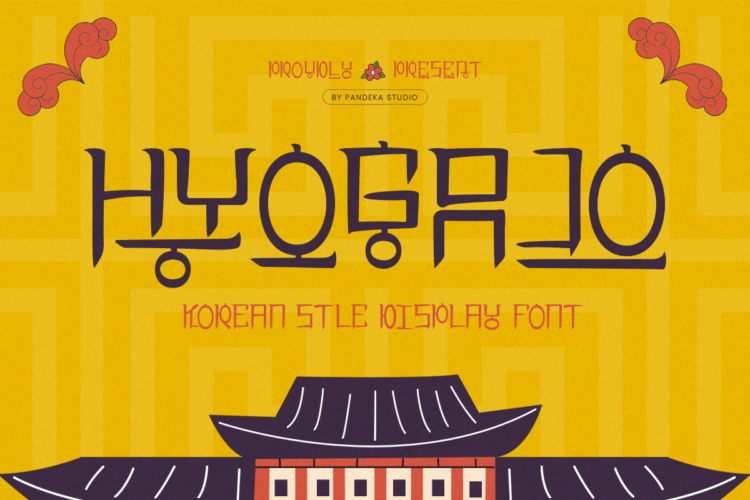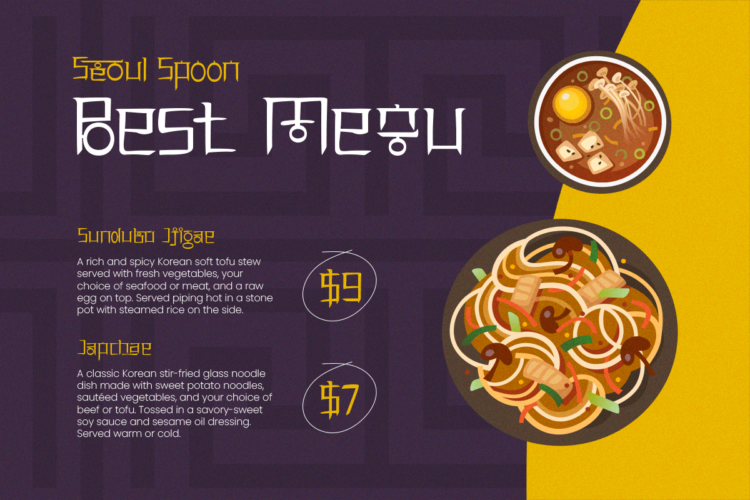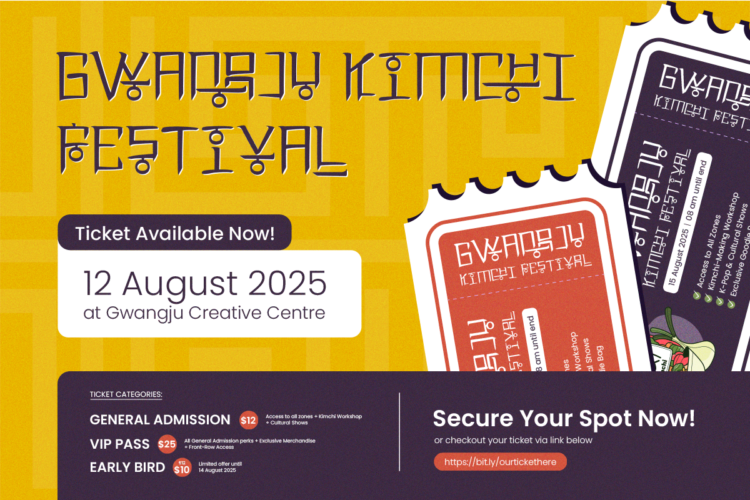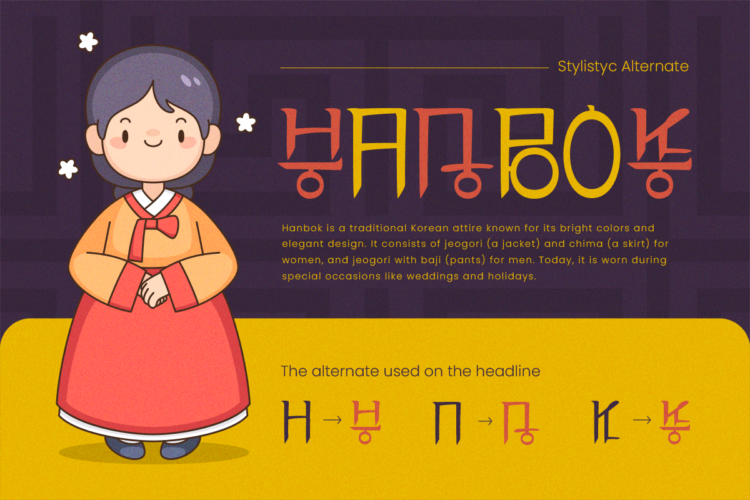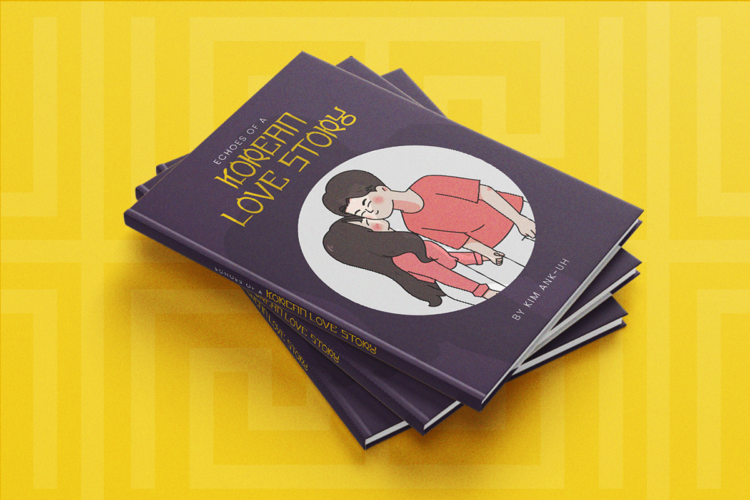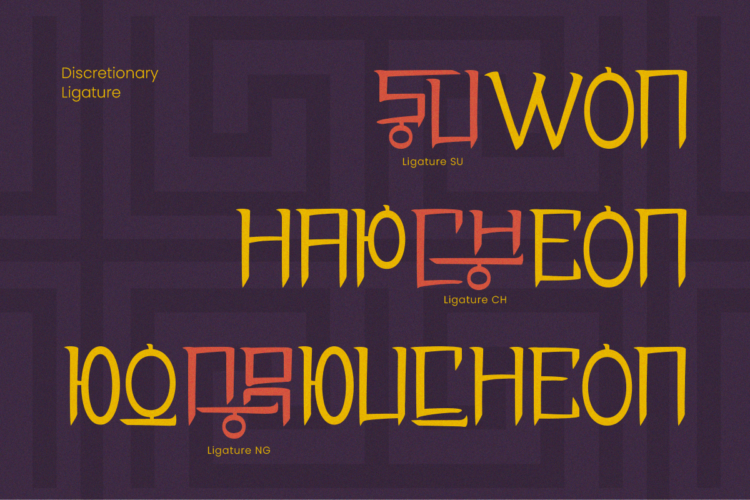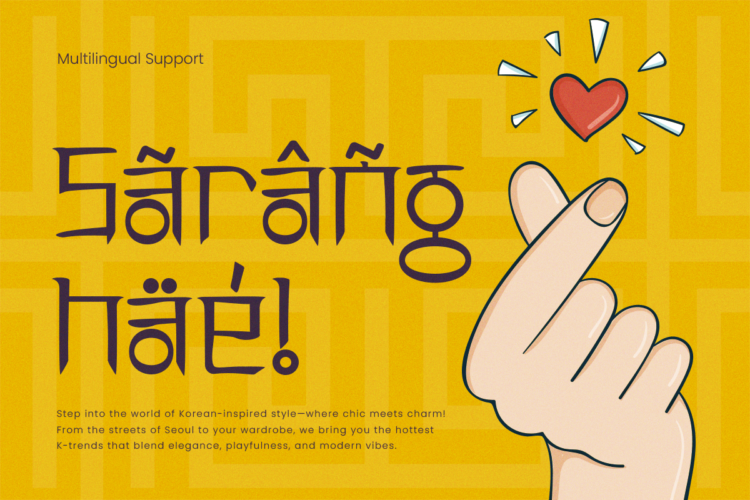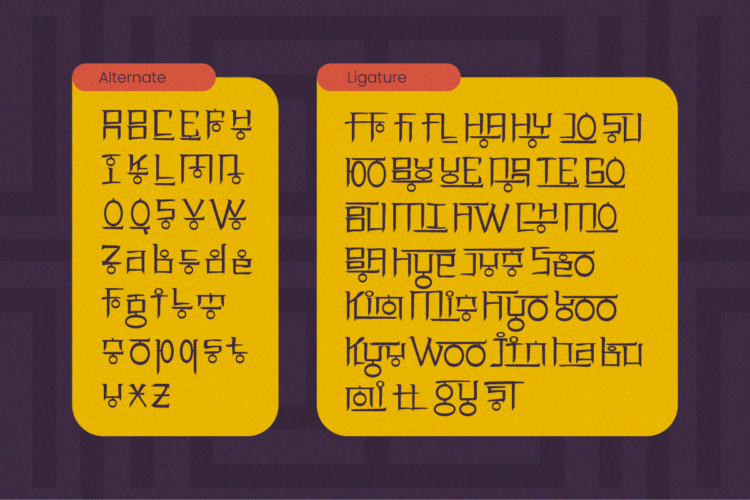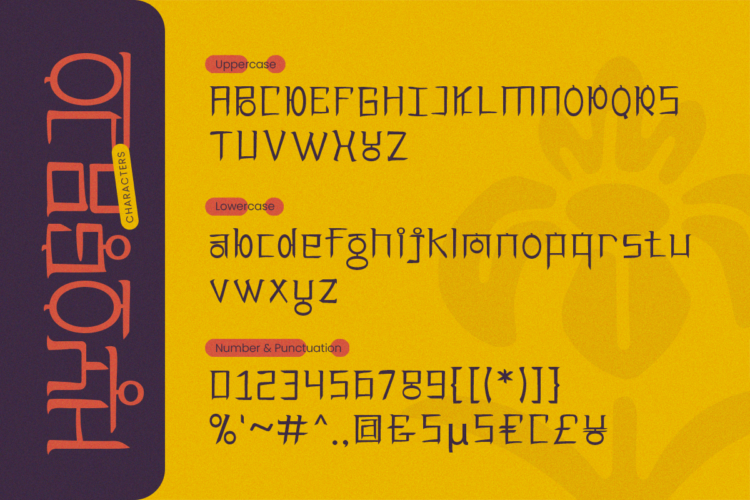
Hyogajo Regular
Hyogajo – Modern Korean Display Typeface
Hyogajo combines bold typography with contemporary Korean aesthetics, making it ideal for branding, editorial designs, cultural projects, and modern advertisements. Its stylish lettering and elegant structure add a unique and sophisticated touch to any design.
• 67+ Ligatures and alternates